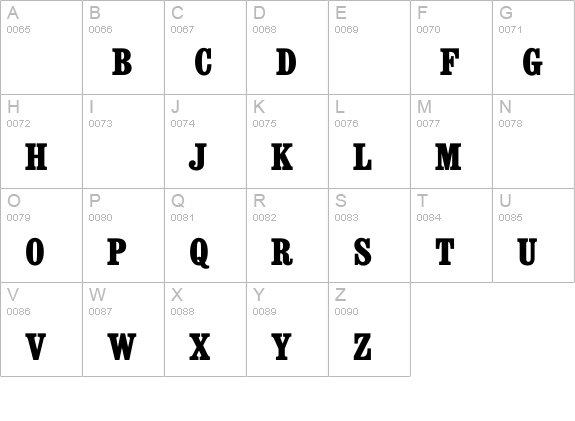
ConsortExtraBoldCondensed Font Details
ConsortExtraBoldCondensed font is a striking and bold typeface that exudes power and confidence. Its condensed design makes it perfect for headlines, titles, and any design project that requires a strong visual impact. The thick strokes and sharp edges give ConsortExtraBoldCondensed a modern and edgy look, while still maintaining readability. This versatile font is ideal for a wide range of design applications, from posters to packaging to branding. Its commanding presence ensures that your message will be delivered with impact and authority. Whether you're creating a sleek and contemporary design or a bold and eye-catching display, ConsortExtraBoldCondensed is sure to make a statement. The best part? ConsortExtraBoldCondensed font is available for free download at FontsMarket.com. Now you can add this powerful typeface to your font library without any cost, making it a valuable asset for any designer looking to make a bold statement. Don't miss out on the opportunity to enhance your projects with the dynamic energy of ConsortExtraBoldCondensed font – download it now and let your creativity shine!